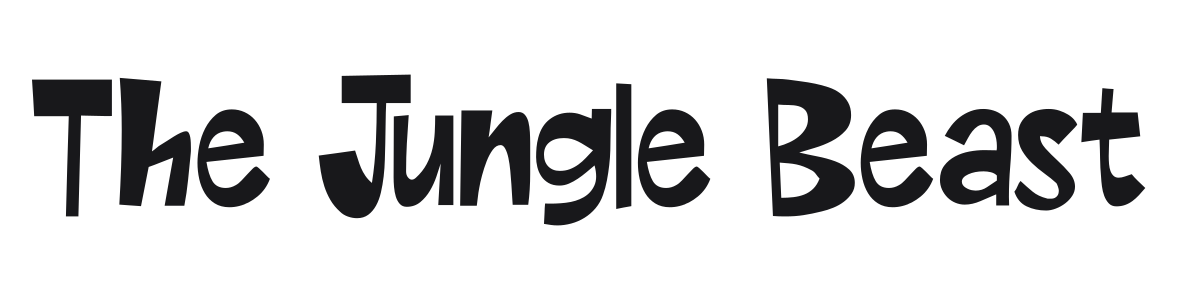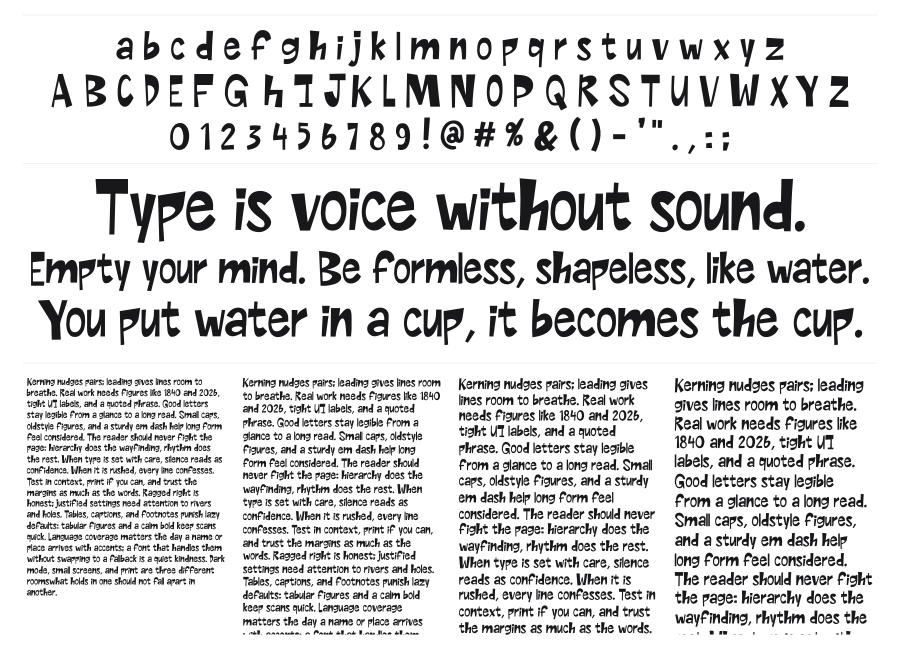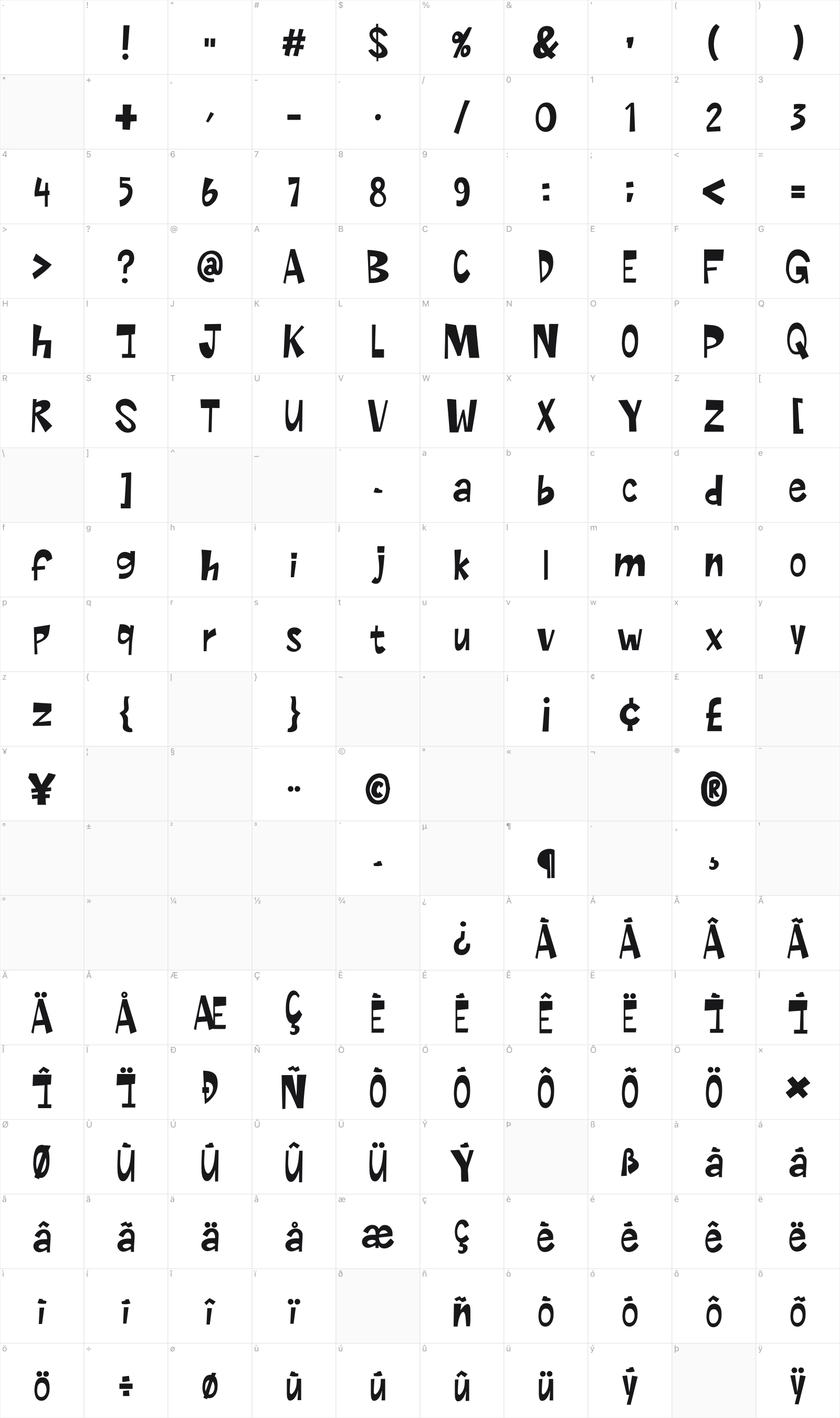
The Jungle Beast
The Jungle Beast is a heavy, irregular display sans with a wild, hand-painted energy that feels like it was scrawled by someone in a hurry. Each character has its own quirky proportions, from oversized crossbars to tilted counters, keeping the eye moving in a good way. It brings raw comic-book attitude to packaging, posters, and any headline that needs to feel alive.